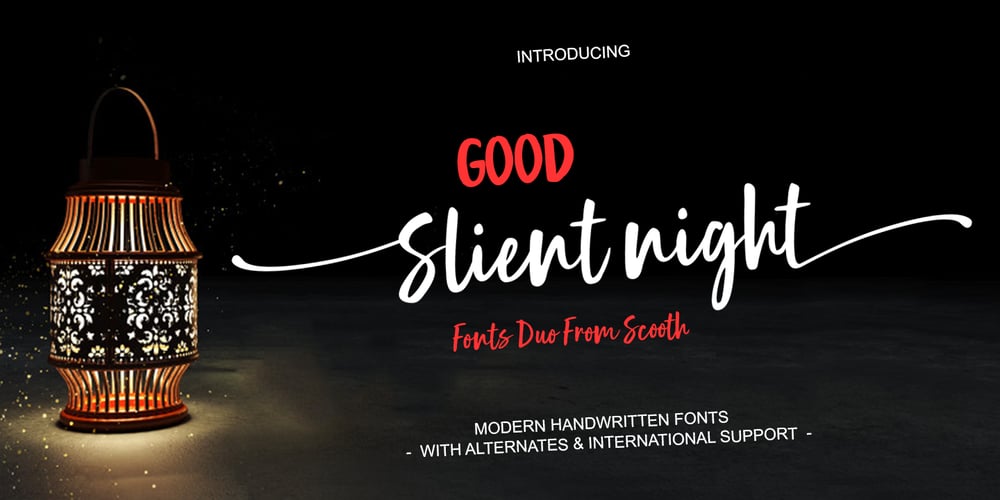
Good Slient Night Font Family was designed by Muammar and published by Scoothtype. Good Slient Night contains 3 styles and family package options. Good Slient Night is handmade fresh typeface, created with brush and ink. contemporary approach to design hand-painted natural and also a combination of delicate script with an irregular baseline. Suitable for use in watercolor design or as a hand brushed bold letters. Such as Novel tittle, Apparel, Invitations, Quotes, Books tittle, Stationery Design, Branding, Logos, Greeting Card, T-shirt, Packaging design, Poster and more. Good Slient Night includes a complete set of uppercase and lowercase letters, as well as multi-language support, numbers, punctuation, ligatures and alternative character.How to access all alternative characters, using Windows Character Map with Photoshop:https://www.youtube.com/watch?v=Go9vacoYmBwHow to access all alternative characters using Adobe Illustrator:https://www.youtube.com/watch?v=XzwjMkbB-wQIf you need help or advice, please contact me by e-mail. Thank you.!